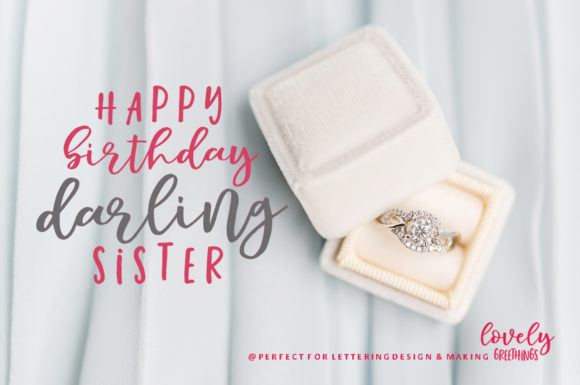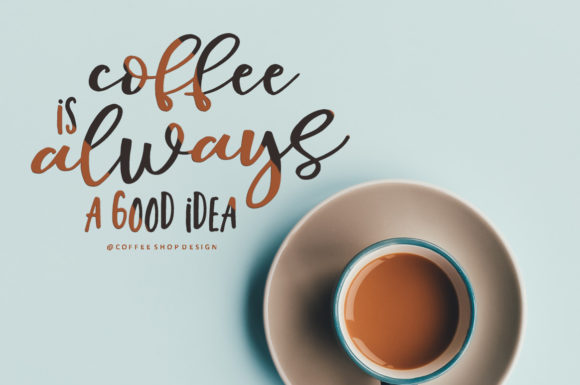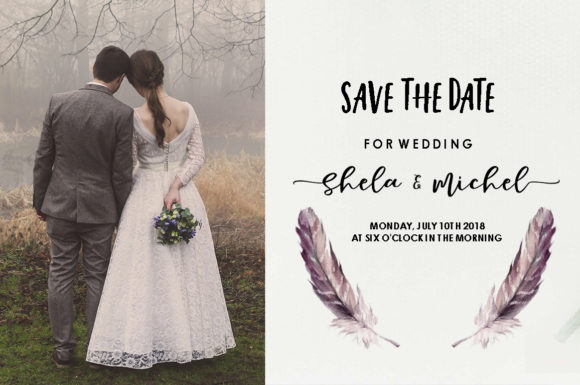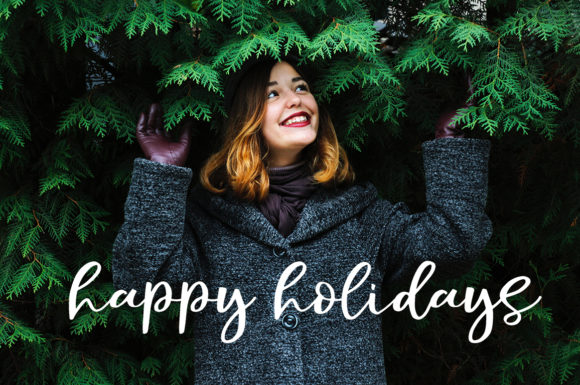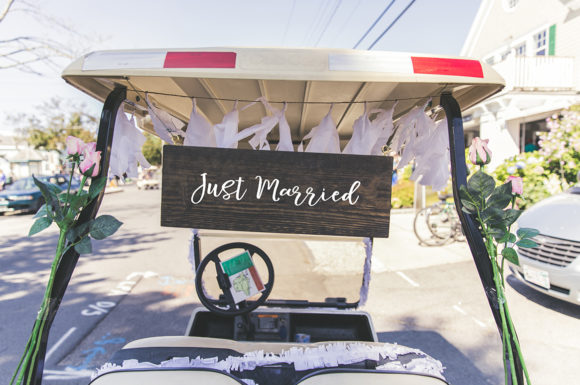
Introduction to Mochigan Font
Mochigan is a gorgeous font duo created with a brush and ink, giving your projects a bold and irregular look.
This download comes with two distinctly styled fonts that work in harmony with one another in order to create awesome typographic creations .
Key Features of Mochigan Font